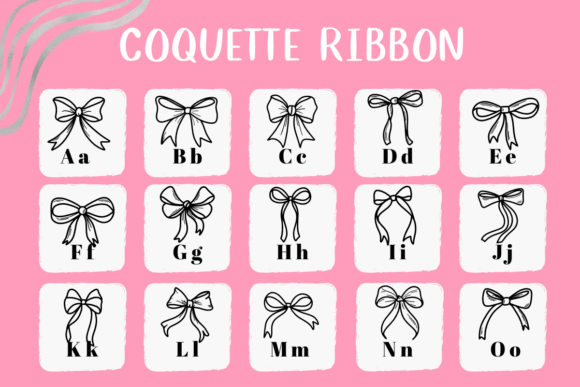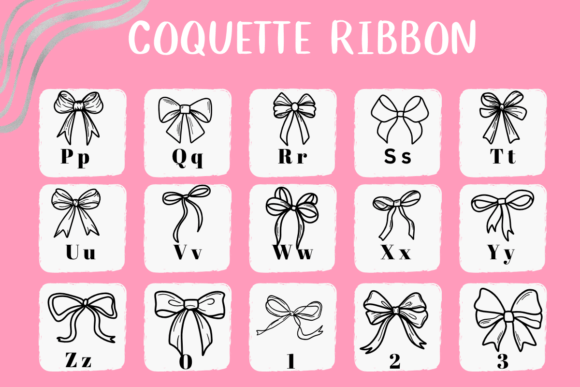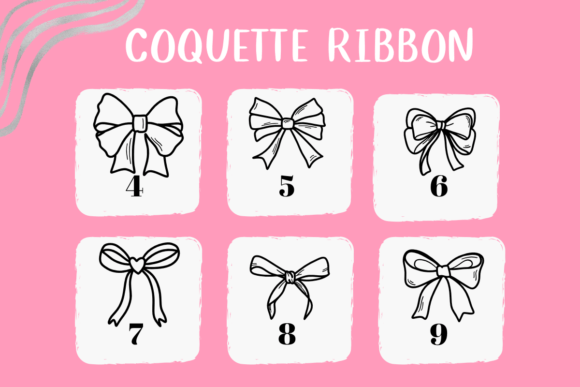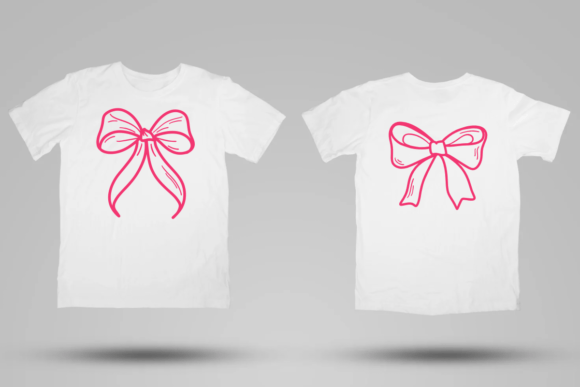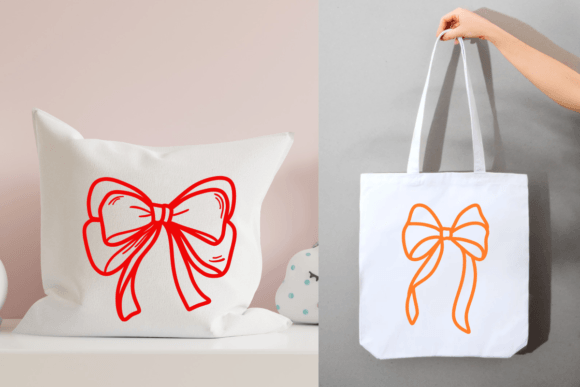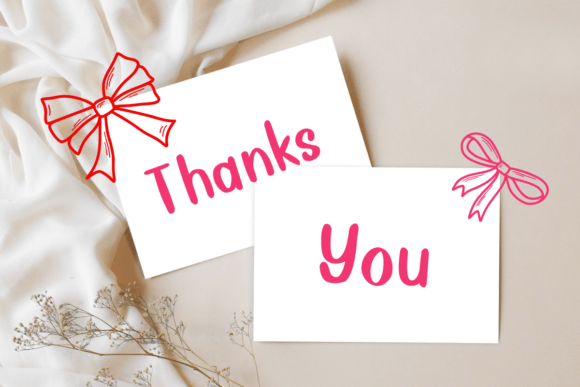
Introducing Coquette Ribbon Font: Add a Playful Touch to Your Designs
Are you looking for a unique and charming font to elevate your designs? Look no further than Coquette Ribbon Font, a delightful dingbat font featuring cute little bows that are sure to add a playful touch to your creations. In this article, we’ll dive into the world of Coquette Ribbon Font, exploring its features, uses, and benefits for designers and crafters alike.
What is Coquette Ribbon Font?
Coquette Ribbon Font is a fun and charming dingbat font that showcases adorable little bows, perfect for adding a touch of whimsy to your designs. This font is ideal for designers, crafters, and anyone looking to add a playful element to their work. With Coquette Ribbon Font, you can create beautiful and eye-catching designs that are sure to stand out.
Features of Coquette Ribbon Font
• Cute Little Bows: The font features a variety of cute little bows that can be used to add a playful touch to your designs.
• Dingbat Font: Coquette Ribbon Font is a dingbat font, which means it’s made up of symbols and icons rather than traditional letters and numbers.
• Scalable: Coquette Ribbon Font is scalable, meaning you can use it for a variety of projects, from small crafts to large-scale designs.
Uses of Coquette Ribbon Font
Coquette Ribbon Font is perfect for a variety of projects, including:
• Crafting: Use Coquette Ribbon Font to add a personal touch to your crafting projects, such as scrapbooking, card making, and DIY gifts.
• Graphic Design: Add a playful touch to your graphic designs, such as brochures, flyers, and social media graphics.
• Wedding and Party Decor: Use Coquette Ribbon Font to create beautiful and unique wedding and party decorations, such as garlands, banners, and gift tags.
• Digital Art: Incorporate Coquette Ribbon Font into your digital art, such as illustrations, paintings, and mixed media projects.
Benefits of Using Coquette Ribbon Font
Using Coquette Ribbon Font offers several benefits, including:
• Unique and Playful: Coquette Ribbon Font adds a unique and playful touch to your designs, setting them apart from others.
• Easy to Use: The font is easy to use and requires no special design skills.
• Versatile: Coquette Ribbon Font can be used for a variety of projects, from small crafts to large-scale designs.
• Scalable: The font is scalable, meaning you can use it for projects of all sizes.
Tips for Using Coquette Ribbon Font
Here are some tips for using Coquette Ribbon Font:
• Experiment with Colors: Try pairing Coquette Ribbon Font with different colors and patterns to create unique and eye-catching designs.
• Mix and Match: Mix and match Coquette Ribbon Font with other fonts and graphics to create interesting and dynamic designs.
• Use for Details: Use Coquette Ribbon Font to add details and embellishments to your designs, such as borders, frames, and icons.
Coquette Ribbon Font is a fun and charming dingbat font that’s perfect for adding a playful touch to your designs. With its cute little bows and easy-to-use design, this font is ideal for designers, crafters, and anyone looking to add a unique element to their work. Whether you’re working on a crafting project, graphic design, or digital art, Coquette Ribbon Font is sure to inspire and delight. So why not give it a try and see the magic for yourself?